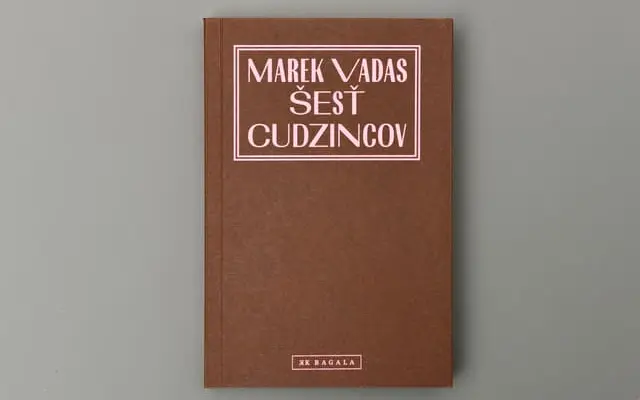
Francis Gradient
A directional shading system built on the Francis humanist sans, offering four gradient variants for display and branding use.
Francis Gradient extends the Francis typeface family with four shading directions: Left, Right, Inside and Outside, each creating a distinct three-dimensional or illuminated effect across the letterforms. The system runs across five weights from Light to Heavy, all with matching italics, giving designers considerable range within the gradient treatment. Used in book covers, branding and identity work where typographic depth is required without resorting to manual effects.
Francis Gradient is a display-oriented variant of the Francis family, a humanist sans-serif. The gradient system adds directional shading variants (Left, Right, Inside, Outside) as a typographic effect layer on top of the underlying humanist sans structure.